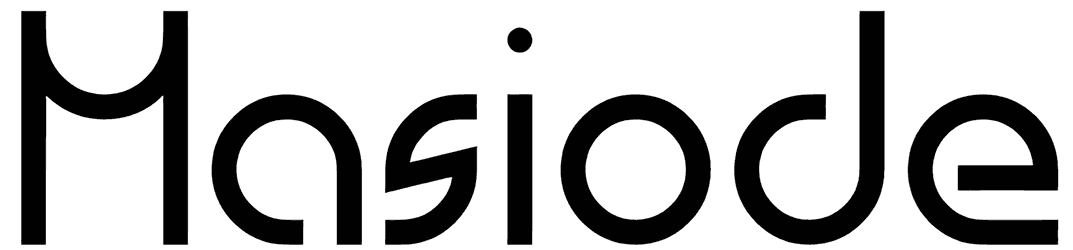
Masiode Font
Angular and evocative, Masiode is a minimalist font that has 4 weights and is an excellent choice for creating a playful atmosphere among your target audience. Grab this curved font right now and put it to use in headers…
Angular and evocative, Masiode is a minimalist font that has 4 weights and is an excellent choice for creating a playful atmosphere among your target audience.
Grab this curved font right now and put it to use in headers, cosmetics logotypes, product packaging, posters, and any other project that asks for a distinguished visual effect. Pick a couple of different narrow-line fonts from our big library to use alongside this one.
Masiode is available in two weights: light and regular, it has rounded version.